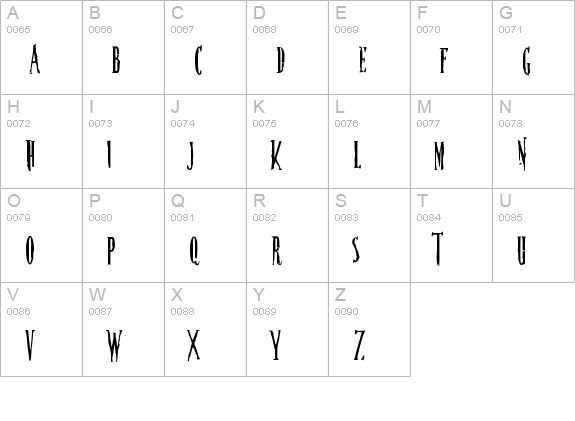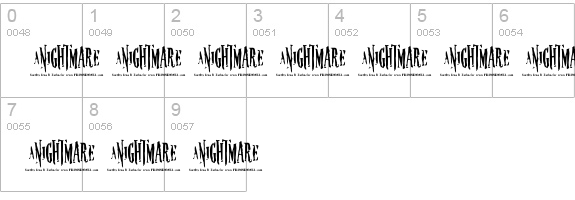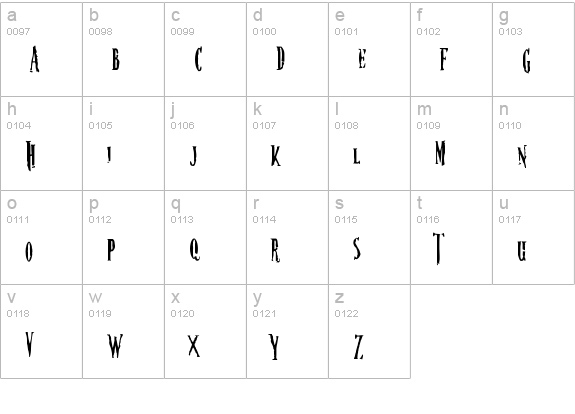
Nightmare 5 Font Details
Nightmare 5 font is a striking and eerie typeface that will send shivers down your spine. With its jagged edges and twisted letterforms, this font captures the essence of a true nightmare. It is perfect for Halloween-themed designs, horror movie posters, or any project that needs a touch of darkness and suspense. The Nightmare 5 font is not only visually captivating, but it also offers a wide range of versatility. Whether you want to create a chilling headline or a spooky paragraph, this font is sure to make a lasting impression. Its unique design gives it an otherworldly feel, making it the ideal choice for any project that requires a touch of the macabre. But perhaps the best part about Nightmare 5 font is that it is freely available to download at FontsMarket.com. This means that you can add a touch of terror to your designs without breaking the bank. Whether you are a professional designer or a hobbyist, this font is a must-have in your collection. So go ahead, unleash your creativity and let Nightmare 5 font bring your darkest visions to life. With its free availability, there's no reason not to give your designs a hauntingly beautiful touch. Download Nightmare 5 font today and experience the thrill of creating something truly spine-chilling.